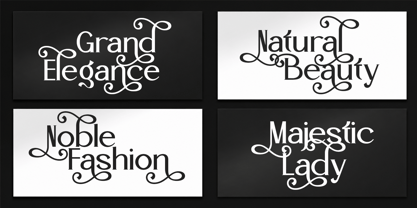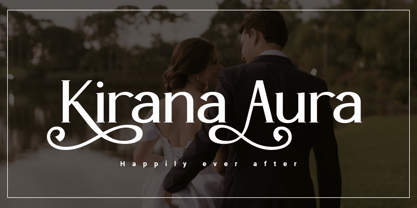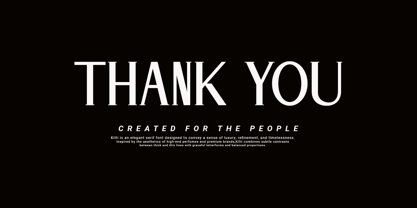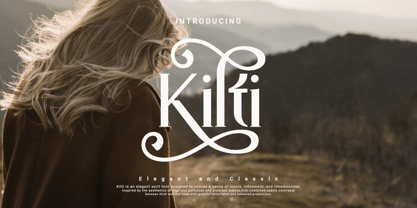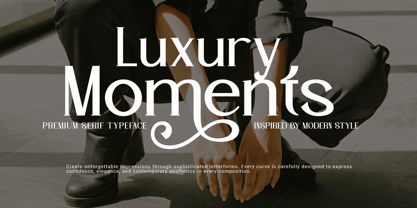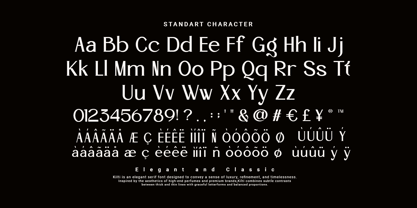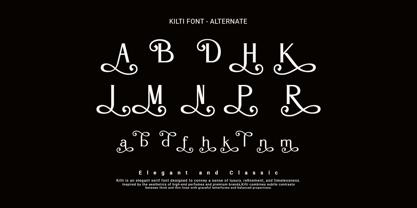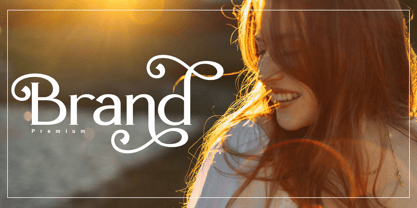
Kilti
Die Schriftfamilie Kilti wurde von Agung Sudirman entworfen und von Agung Sudirman veröffentlicht. Kilti enthält 2 Stile und Familienpaketoptionen. Mehr über diese Familie
Kilti is an elegant serif typeface designed to bring a sophisticated, classic, and refined character to a wide range of creative projects. Its distinctive serif details and graceful letterforms create a timeless appearance while maintaining excellent readability. Kilti is well suited for luxury branding, fashion magazines, editorial layouts, wedding invitations, logos, packaging, beauty products, and premium stationery. The combination of elegant curves, balanced proportions, and traditional serif elements gives Kilti a stylish and professional personality, making it an excellent choice for designs that require a luxurious, feminine, and sophisticated visual identity.